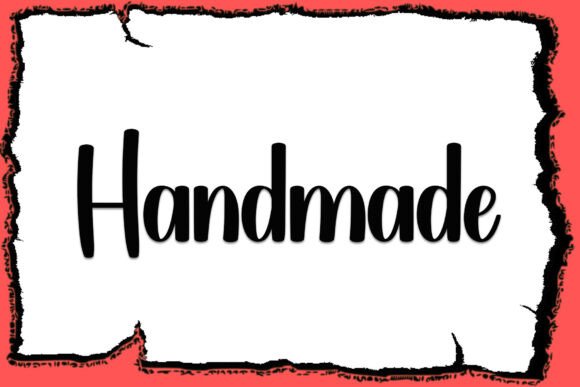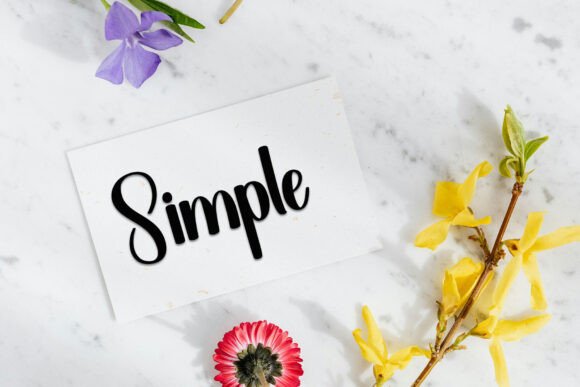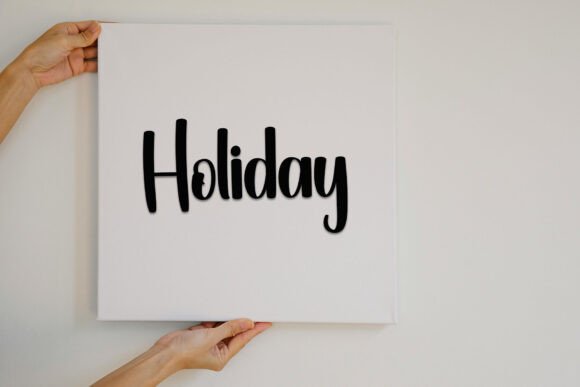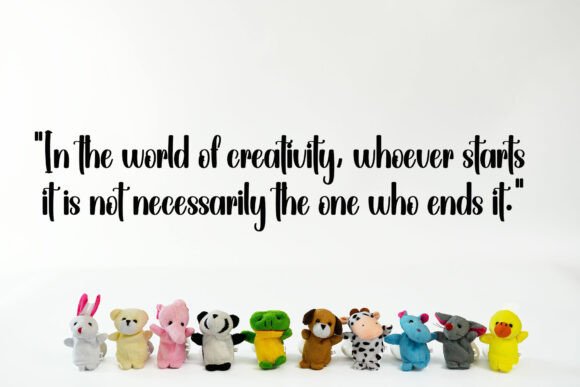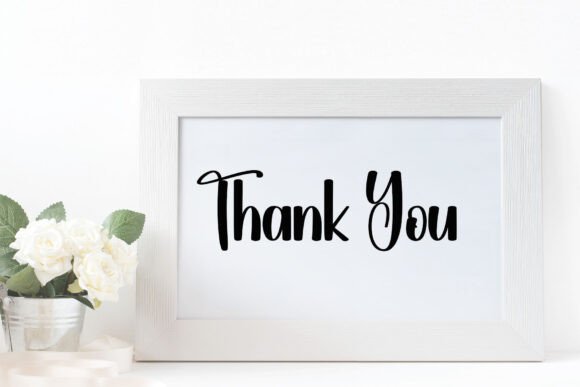
The Ultimate Guide to Friends Font: Elevate Your Designs with Elegance
I’ll never forget the time I was working on a wedding invitation project, and my client specifically asked for a font that exuded elegance and sophistication. I scoured the internet, trying out font after font, but nothing seemed quite right. That was until I stumbled upon Friends Font. ✨ It was love at first sight! The perfect blend of classic calligraphy and modern flair, Friends Font instantly elevated my design and impressed my client.
An Honest Review of Friends Font
- ✨ Timeless elegance: Friends Font has a classic, sophisticated feel that’s perfect for designs that require a touch of luxury.
- ✅ Impeccable form: The font’s clean lines and precise curves make it a joy to work with, even at small sizes.
- 💫 Contemporary atmosphere: Despite its classic inspiration, Friends Font feels fresh and modern, making it perfect for a wide range of design projects.
While Friends Font is an excellent choice for many designs, there are a few things to keep in mind: 🤔
- ⚠️ Limited use of all-caps: While the font looks great in all-caps, it’s not the most readable choice for long blocks of text. Consider using a mix of uppercase and lowercase letters for better legibility.
- ⚠️ Glyph limitations: Friends Font may not have an extensive range of glyphs or special characters, so be sure to check the font’s capabilities before using it for a project that requires specific symbols or accents.
The Backstory of Friends Font
Friends Font was inspired by the timeless beauty of classic calligraphy. Its designer, a typography enthusiast, sought to create a font that would bring a touch of elegance and sophistication to modern designs. With its impeccable form and contemporary atmosphere, Friends Font is the perfect choice for designers looking to add a touch of luxury to their work.
Q: What type of designs is Friends Font best suited for?
A: Friends Font is perfect for designs that require a touch of elegance and sophistication, such as wedding invitations, luxury branding, and high-end advertising.
Q: Is Friends Font available in multiple languages?
A: Friends Font may not support all languages, so be sure to check the font’s capabilities before using it for a project that requires specific language support.
Q: Can I use Friends Font in digital designs?
A: Yes, Friends Font can be used in digital designs, such as website headers, social media graphics, and email marketing campaigns.